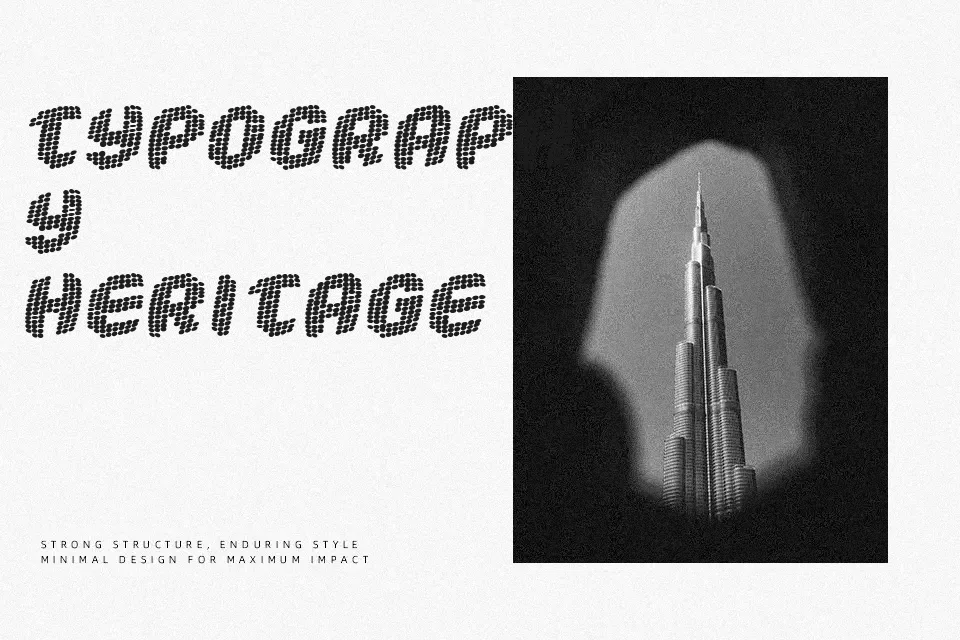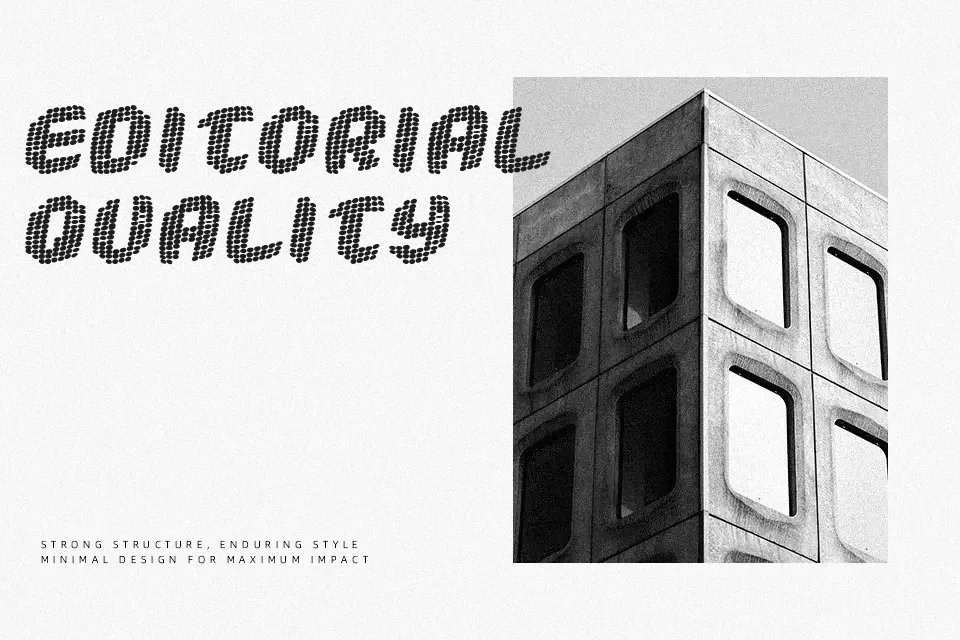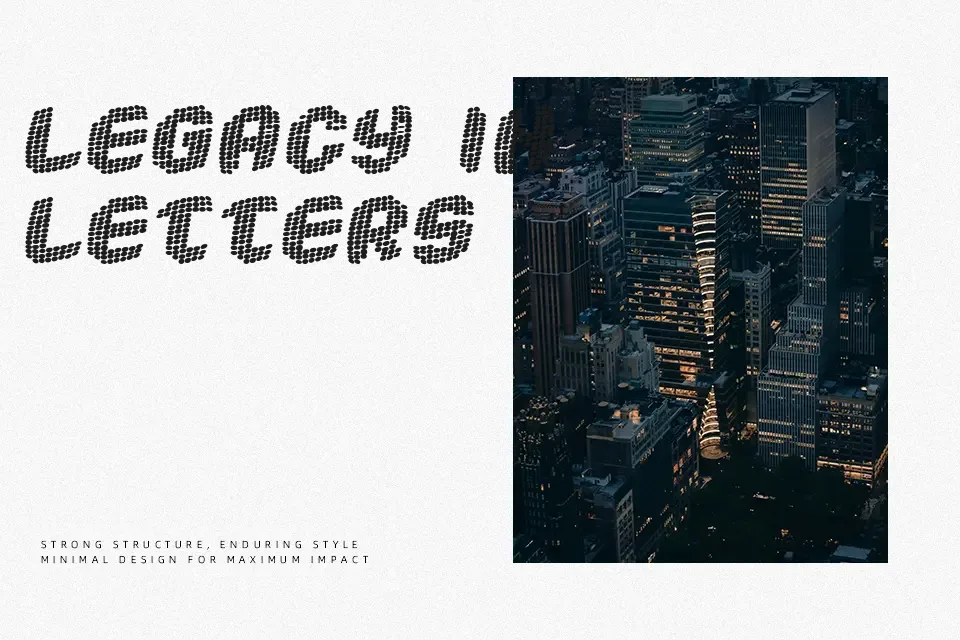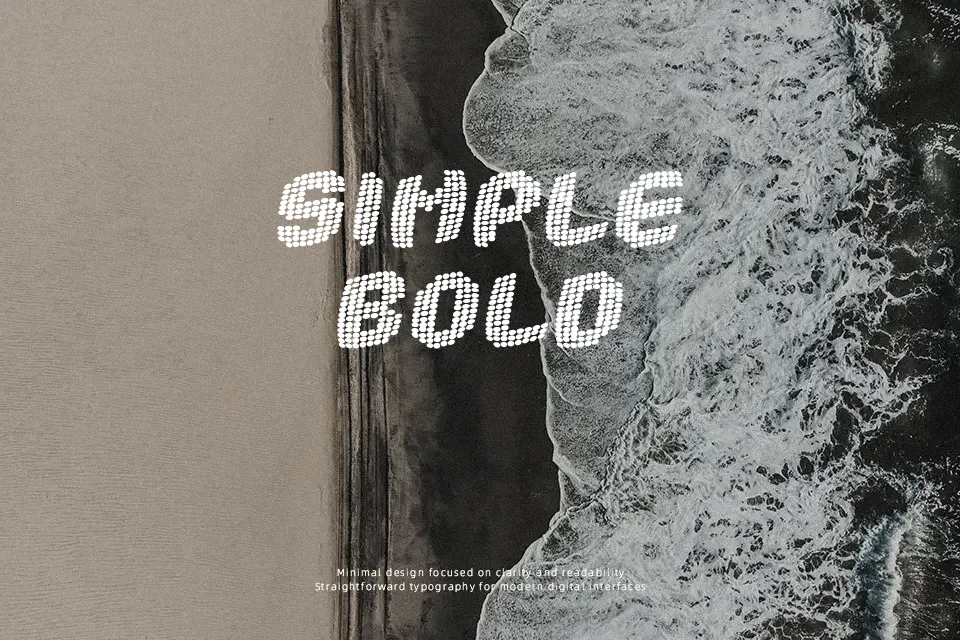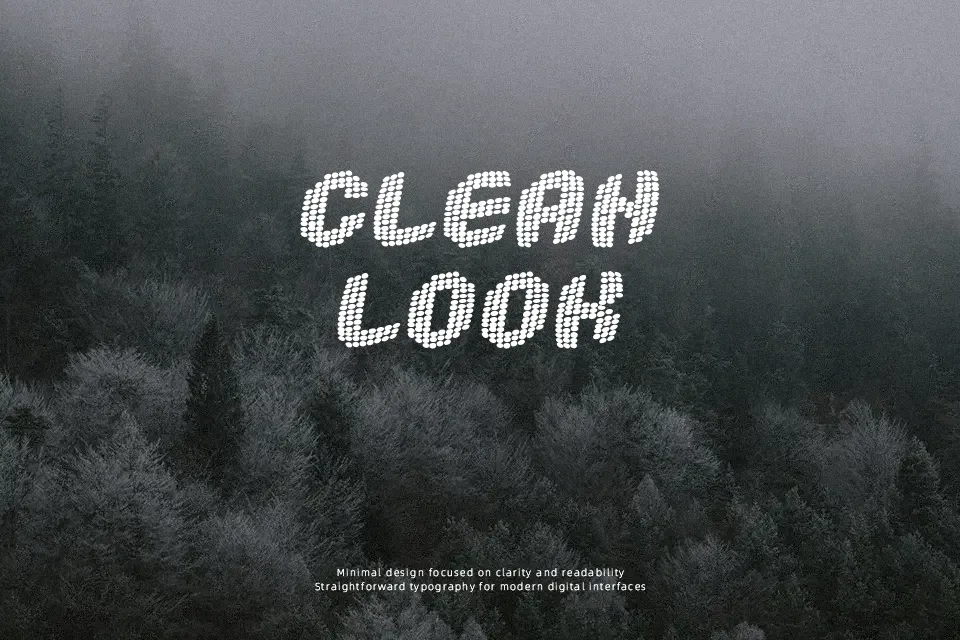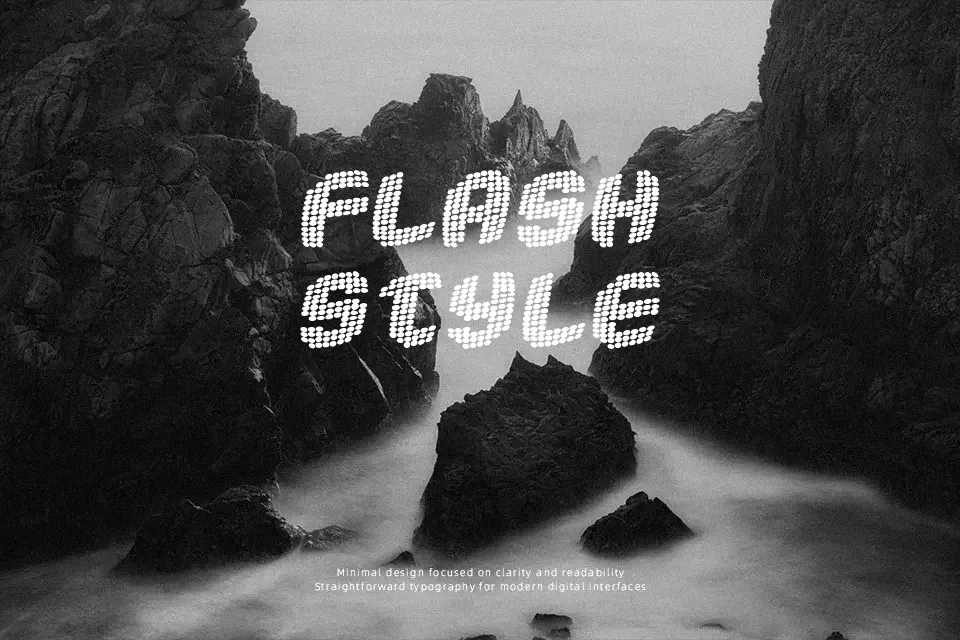
Robotica Font
Designed by Pizzadude
Robotica Font features a heavy, geometric structure built with thick, unyielding strokes that emphasize its futuristic aesthetic. The letterforms display low contrast and blocky proportions, giving the typeface a robust, digital appearance that demands attention. Its compact spacing maintains a tight visual rhythm, which helps maintain clarity in larger headlines and bold typographic layouts. This display typeface performs exceptionally well in retro-gaming interfaces, electronic music posters, and technology-themed branding. However, the dense, uniform forms reduce comfort during extended reading, making it less suitable for long paragraphs or small interface captions. The rigid, techno-inspired design ultimately prioritizes high-impact visual presence over versatile everyday legibility.
Best For: retro gaming interfaces, technology branding, electronic music posters, website hero headlines
Not Ideal For: long paragraph text, small interface captions, dense editorial layouts
Perfect for gaming, headline, and logo, with a bold and display style.